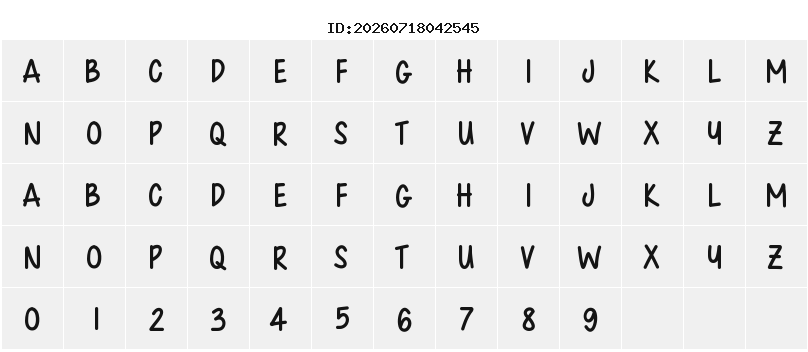
Chunkster Jamz Preview
• Font Name: Chunkster Jamz
• Full Font Name: Chunkster Jamz
About Chunkster Jamz.ttf
Chunkster Jamz.ttf is a modern, elegant sans-serif font designed for ultimate readability and visual harmony. Perfect for branding, headlines, web design, and print materials.